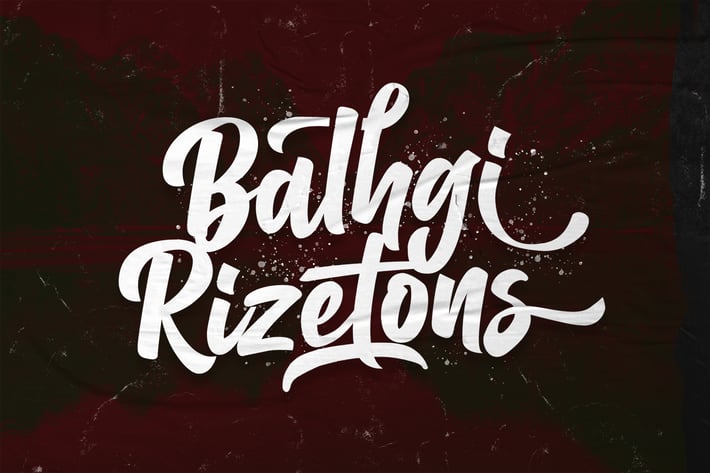
Balhgi Rizetons - Bold Script Font
Introducing Balhgi Rizetons - Bold Script Font
Balhgi Rizetons is a flowing handwritten font, described by an elegant touch, perfect for your favorite projects. Fall in love with its incredibly distinct and timeless style and use it to create spectacular designs!
- Stylistic Alternates
Balhgi Rizetons is a flowing handwritten font, described by an elegant touch, perfect for your favorite projects. Fall in love with its incredibly distinct and timeless style and use it to create spectacular designs!
- Stylistic Alternates